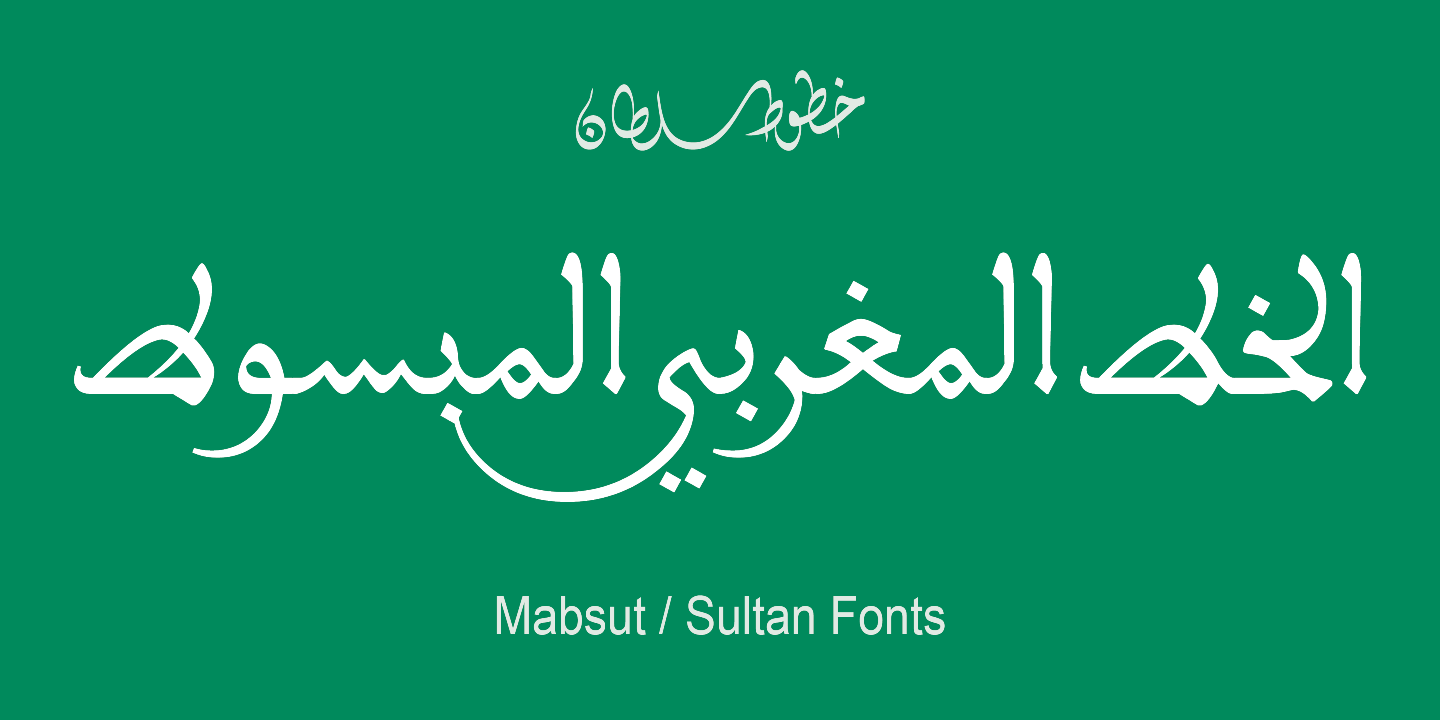
The SF Mabsut Font Free Download is perfect for Arabic branding, editorial designs, book covers, and cultural event posters, offering a calligraphic, authentic style.
This font is exciting because its fluid, curvaceous Maghribi-inspired design blends oriental and Moroccan calligraphy, creating a fresh, artistic look.
The SF Mabsut family includes a single style with multiple stylistic alternates, enhancing creative flexibility for designers.
Discover the elegance of SF Mabsut Font Free Download, a captivating Arabic typeface designed by Sultan Maqtari in 2018. Rooted in the Maghribi (Moroccan Mabsut) style, it features a strong baseline and long, flowing curves, making it ideal for headlines and text in cultural or modern projects. The SF Mabsut stands out with its unique fusion of oriental and Moroccan writing methods, offering a calligraphic aesthetic that’s both traditional and contemporary. Its stylistic alternates allow for customized designs, perfect for logos, magazines, or digital platforms. As 2025 trends highlight authentic, heritage-inspired typography, downloading SF Mabsut Font Free Download ensures your work resonates with sophistication. Test it today to explore its versatility, and consider purchasing for commercial use to fully elevate your creative projects.